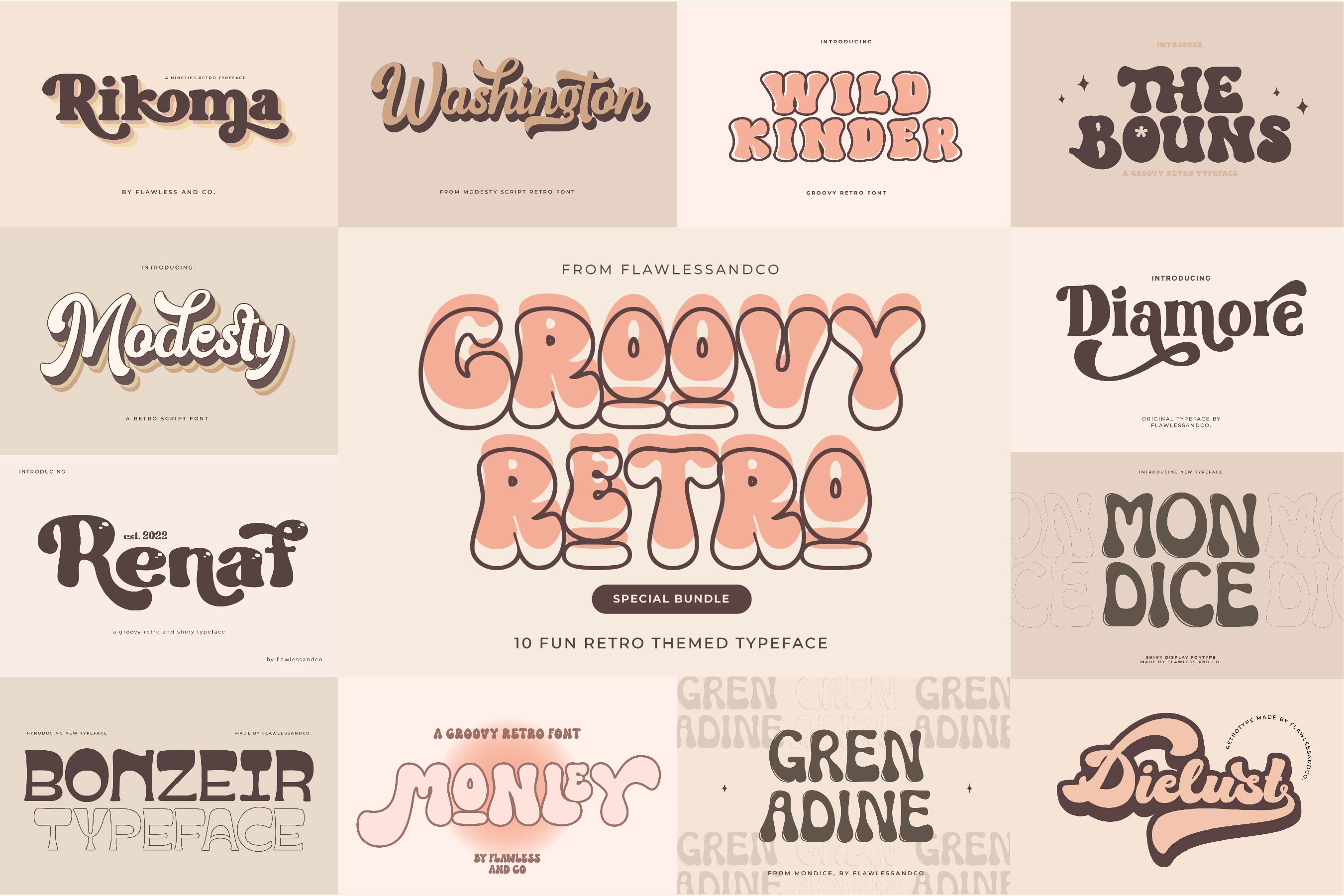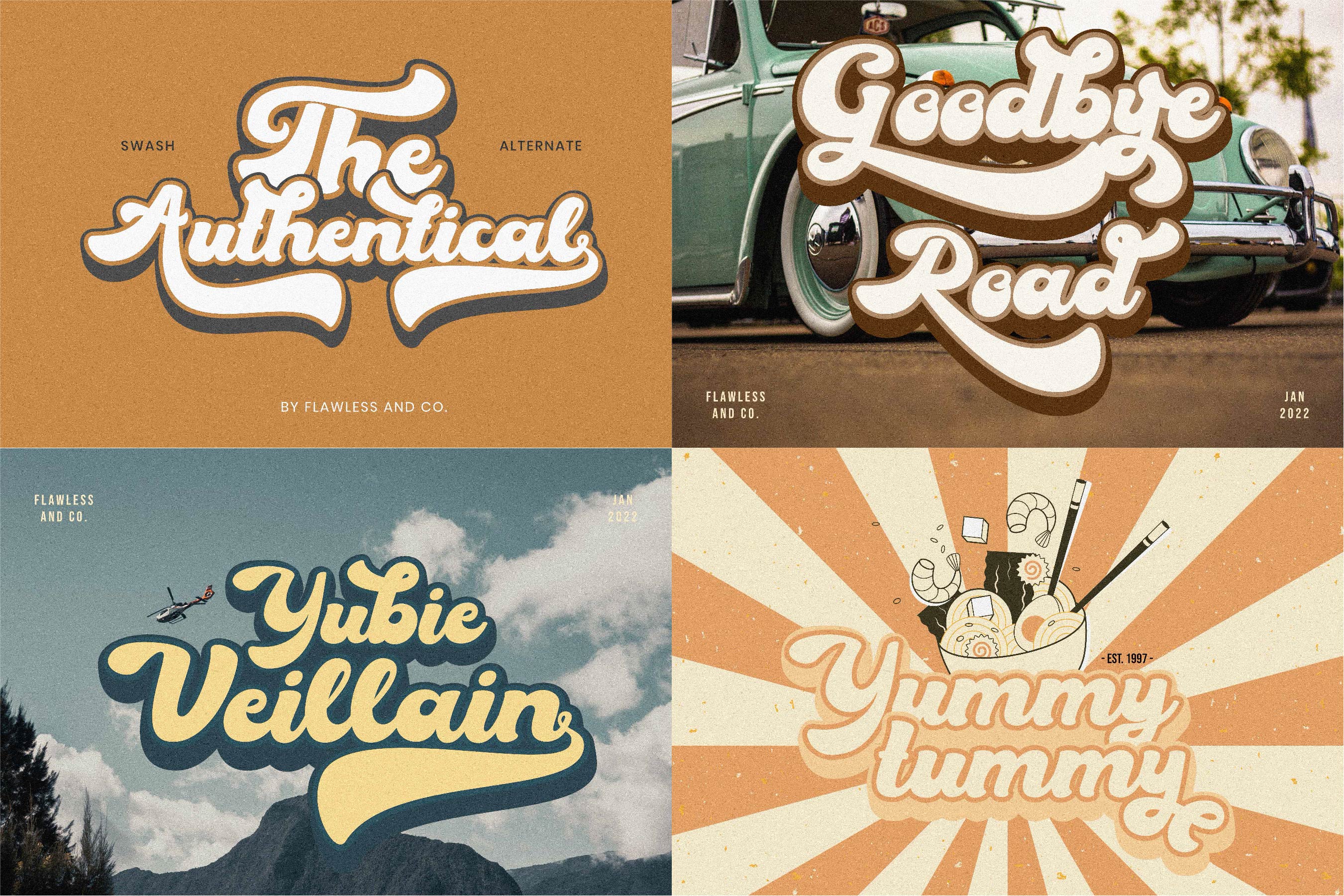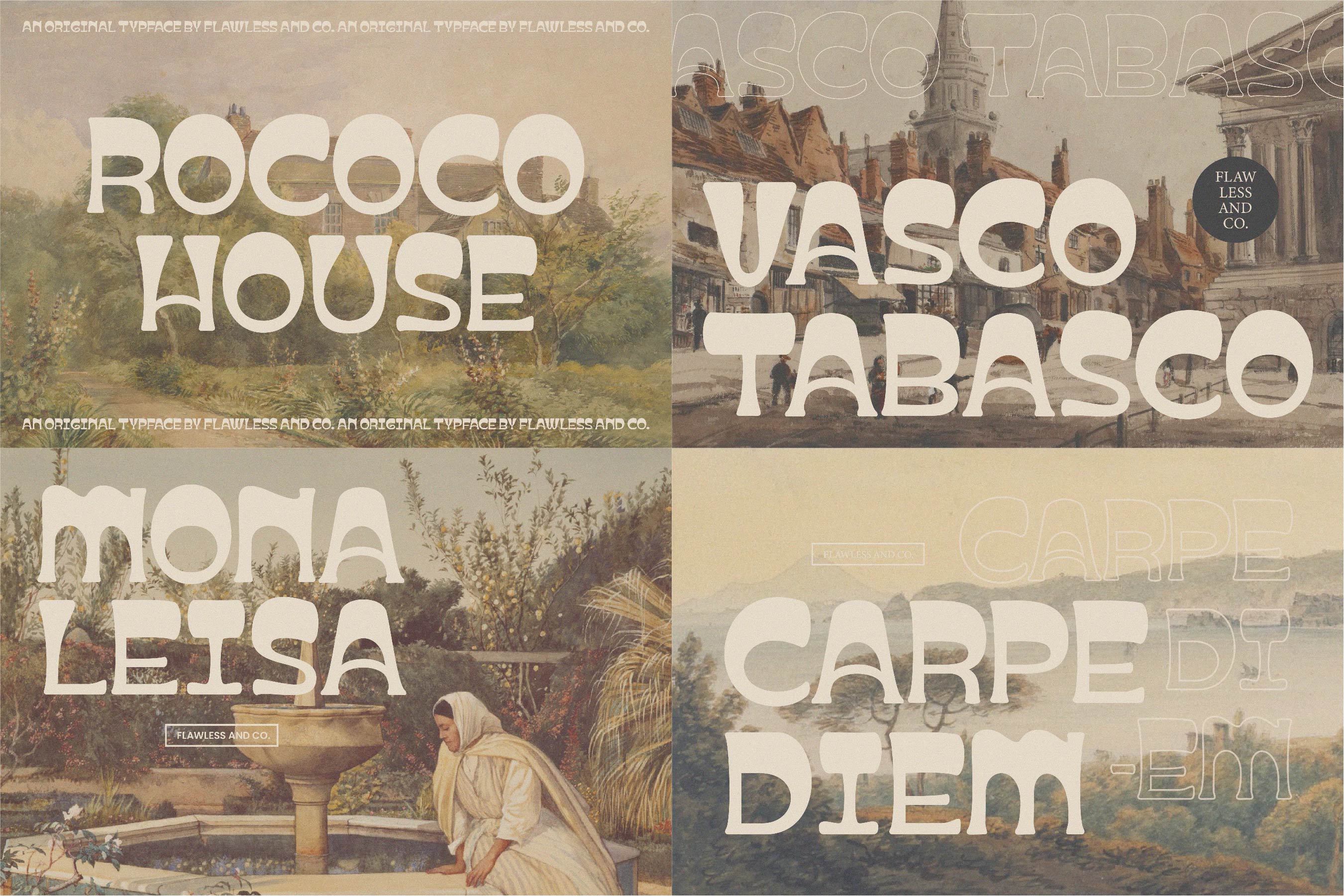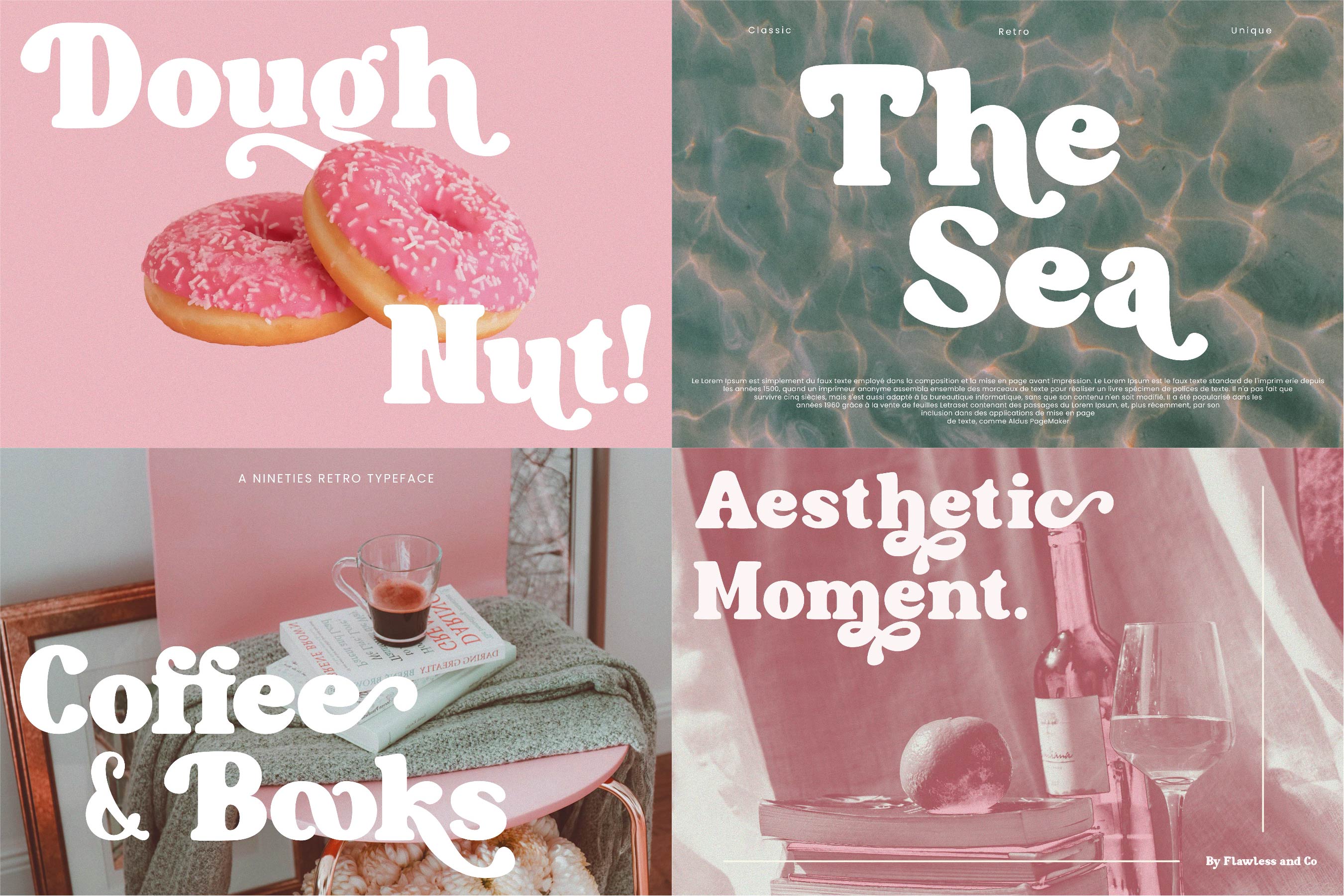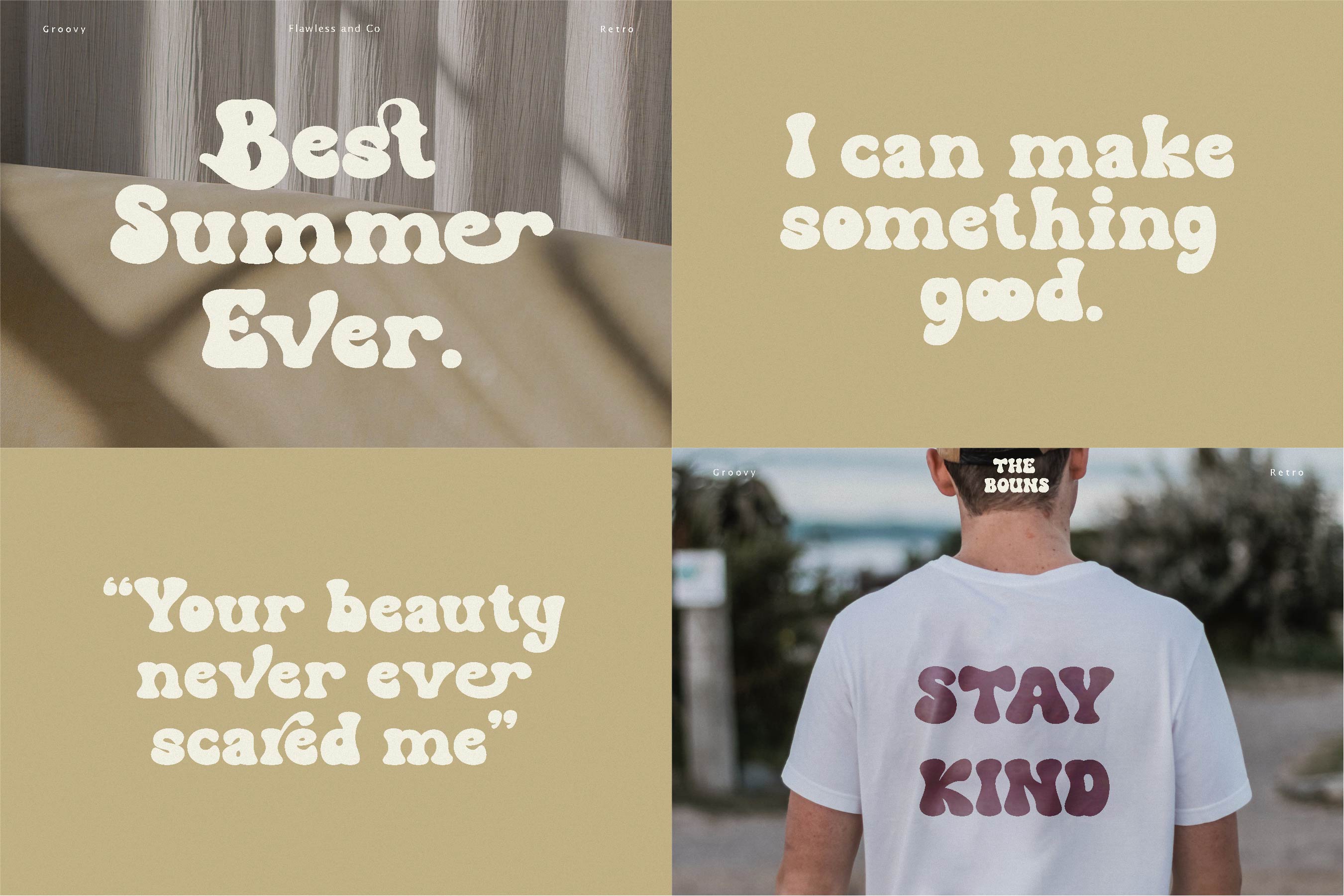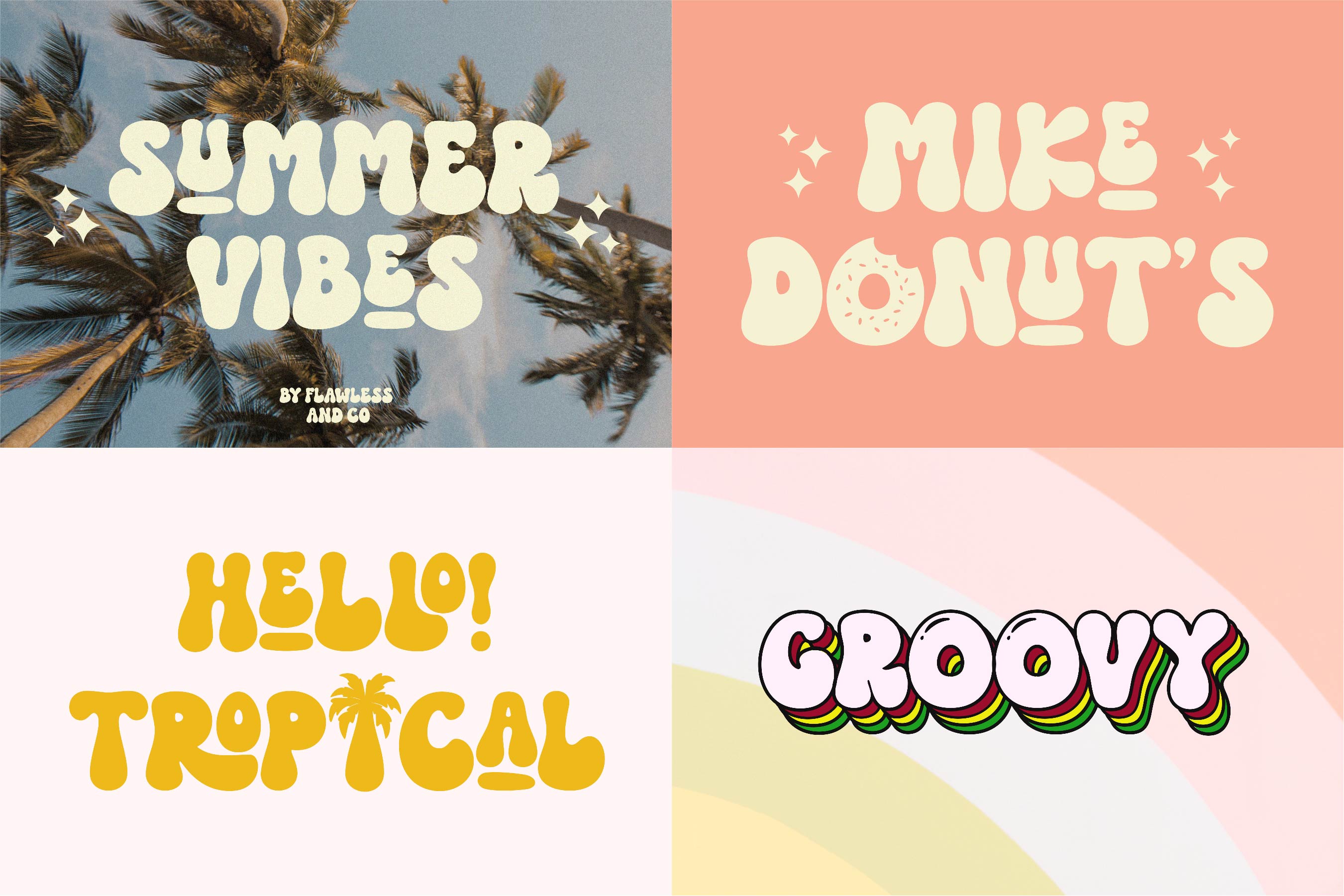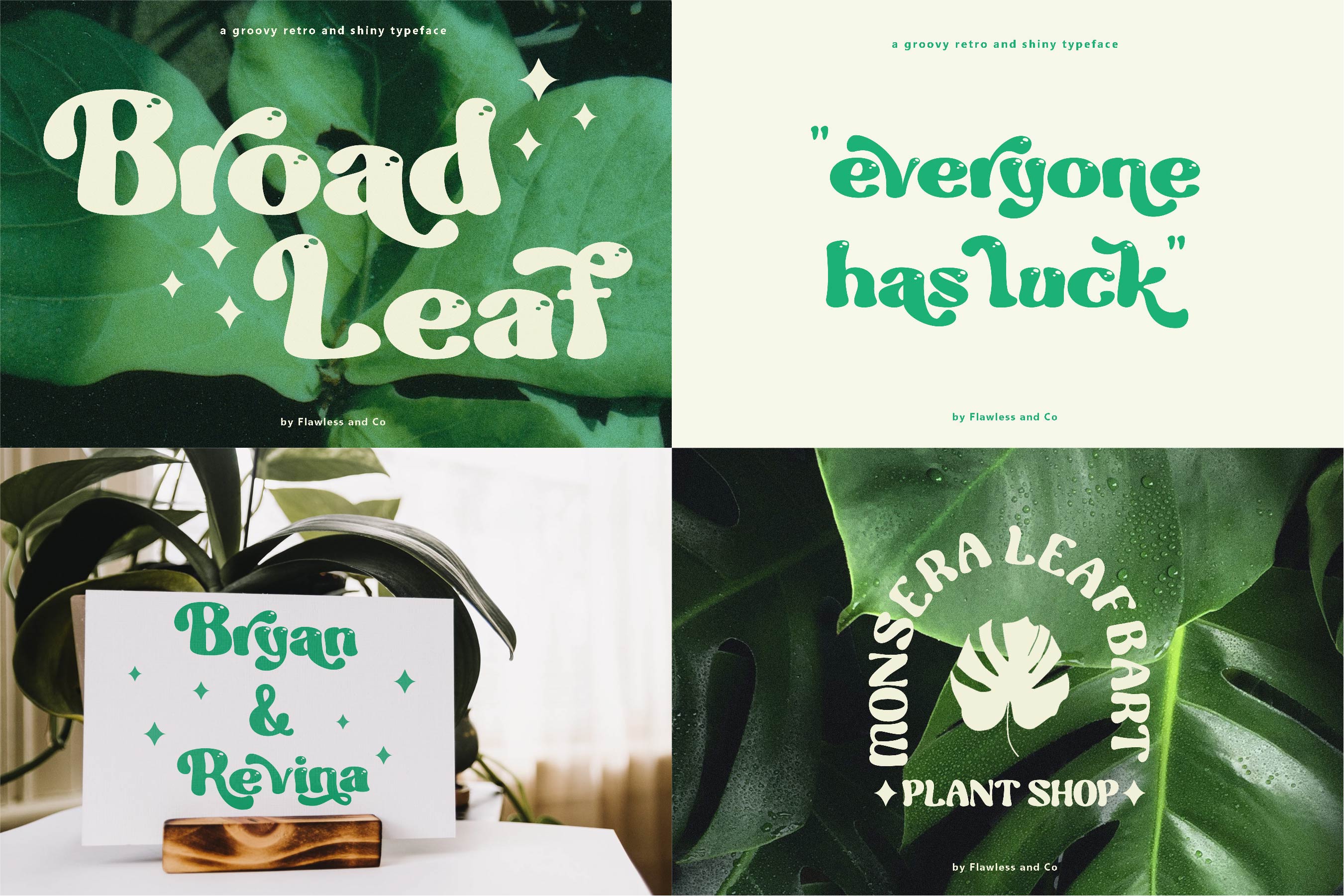
Groovy Retro Special Bundle - Retro Font Bundle with 10 fonts included that perfect for your groovy-themed projects such as poster design, branding materials, t-shirt, business cards, logo, photography, quotes, and more.
There are several font styles like fun and bold style, retro serif style, retro script style, shiny font style and many more. Don't forget to try out some alternate characters for another visual result!